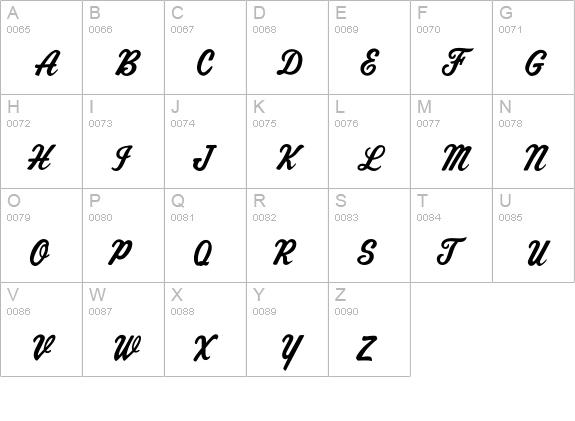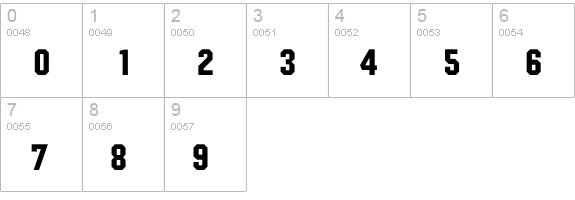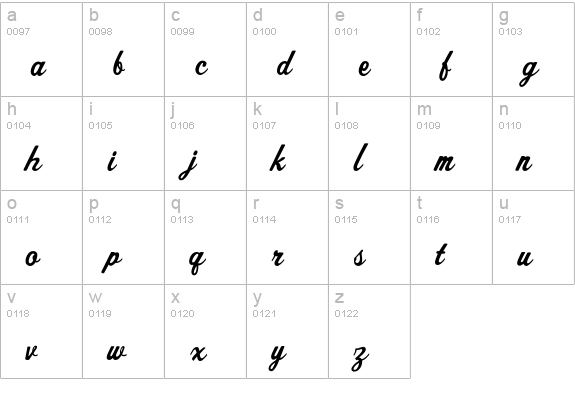
Aktuelle Font Details
Aktuelle is a beautifully crafted font that exudes elegance and sophistication. With its clean lines and modern aesthetic, Aktuelle is perfect for a wide range of design projects, from branding to editorial design. The sleek and stylish letterforms of Aktuelle make it a versatile choice for both digital and print applications. What sets Aktuelle apart is not just its impeccable design, but also the fact that it is available for free. Yes, you read that right - Aktuelle is freely available to download at FontsMarket.com. This means that you can add this stunning font to your collection without breaking the bank. So why wait? Download Aktuelle today and elevate your design projects with this contemporary and chic typeface.